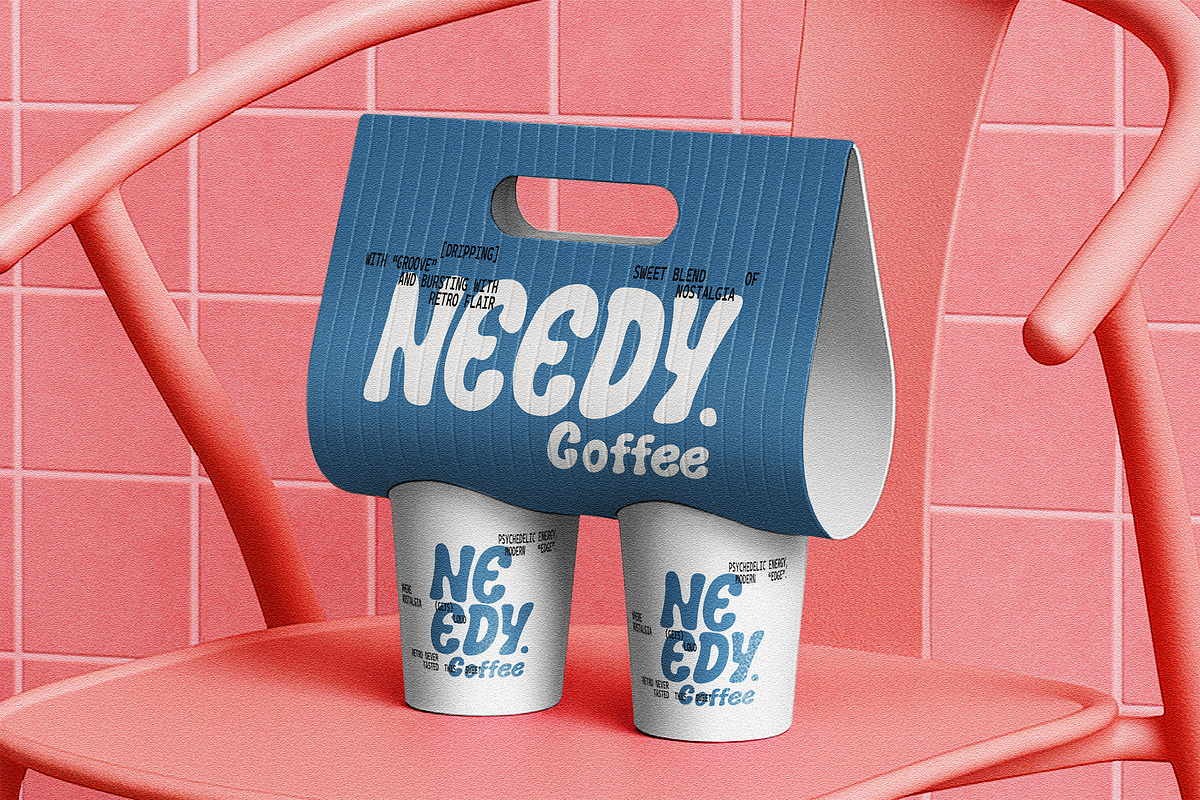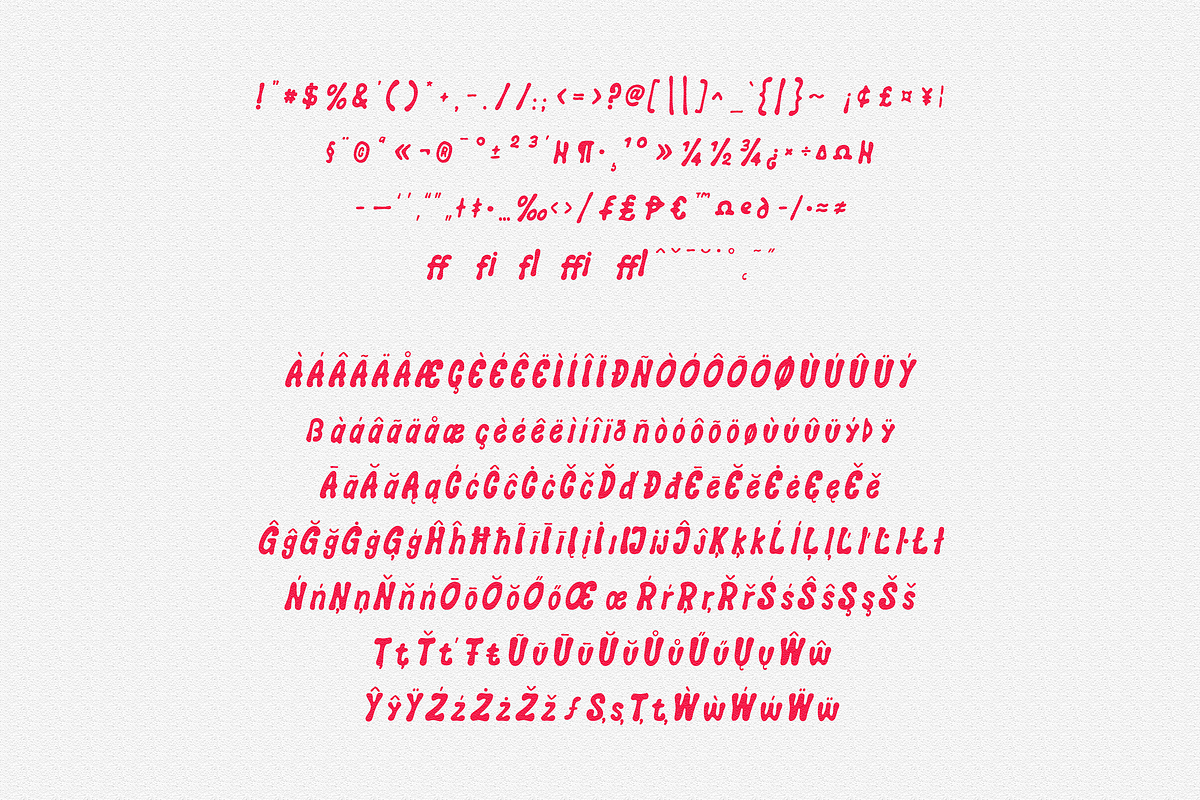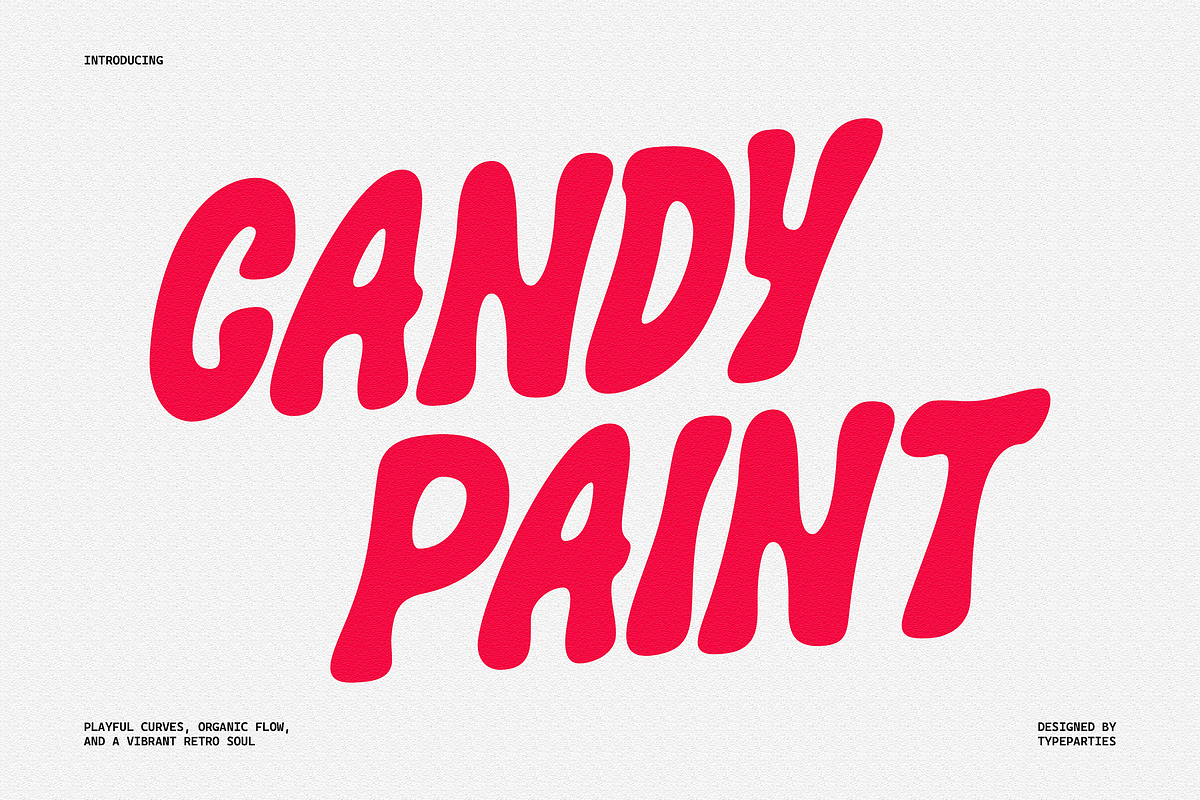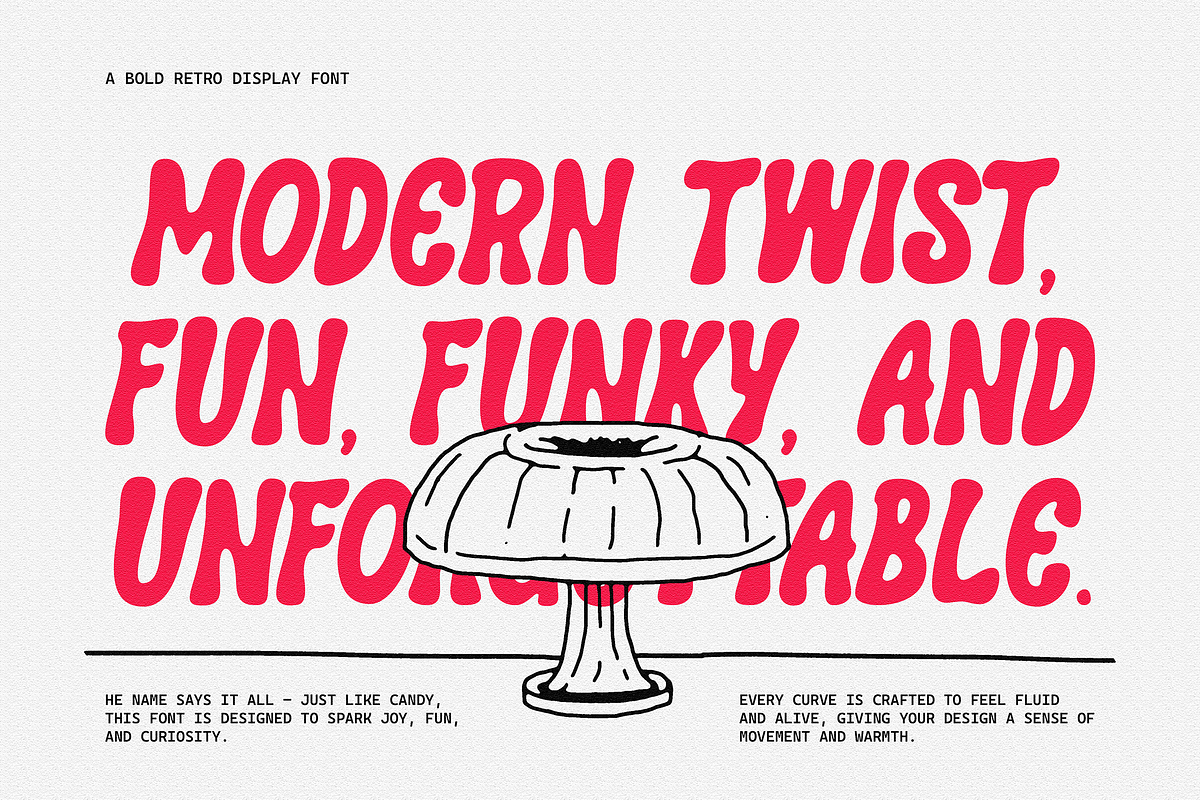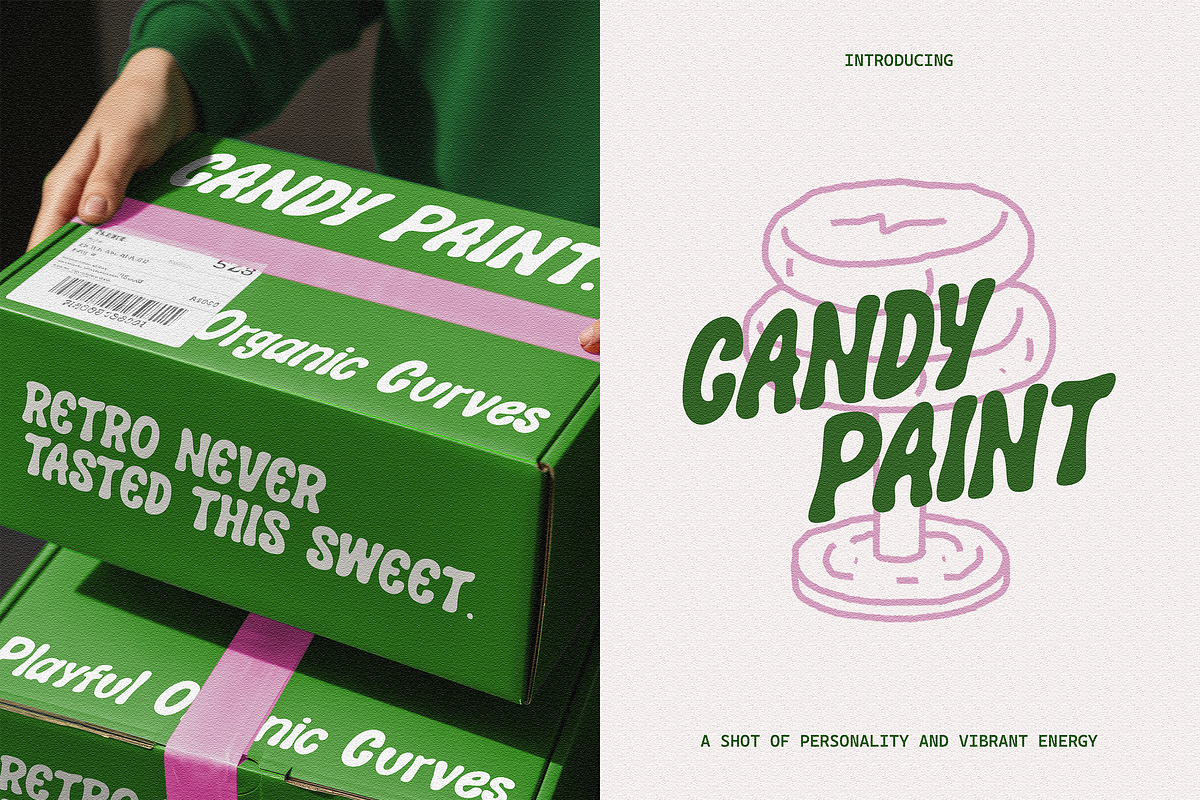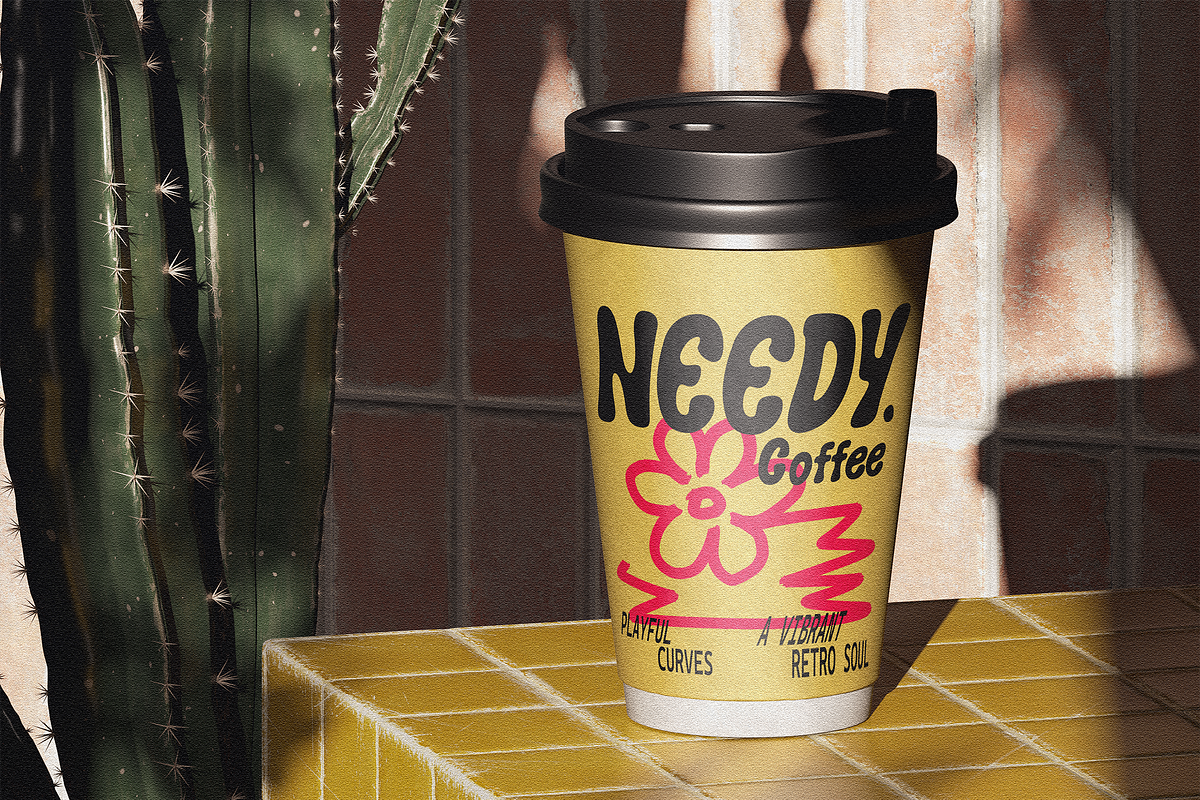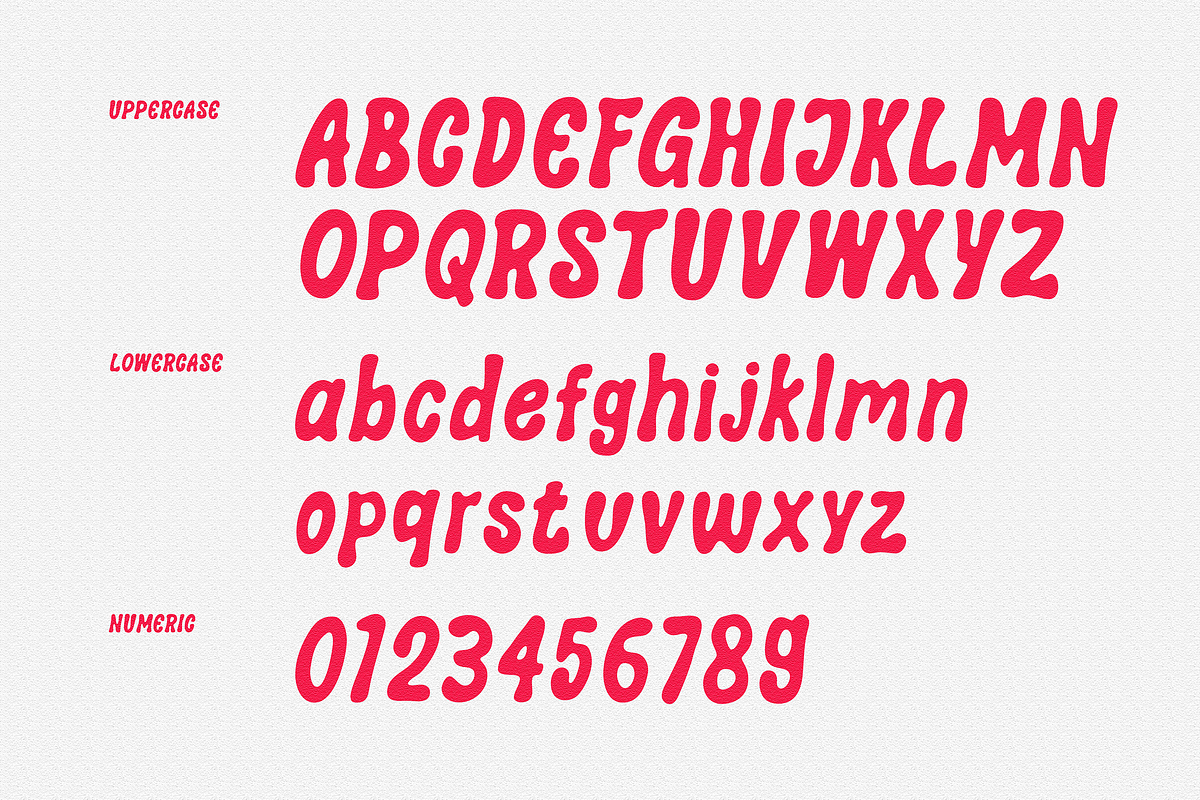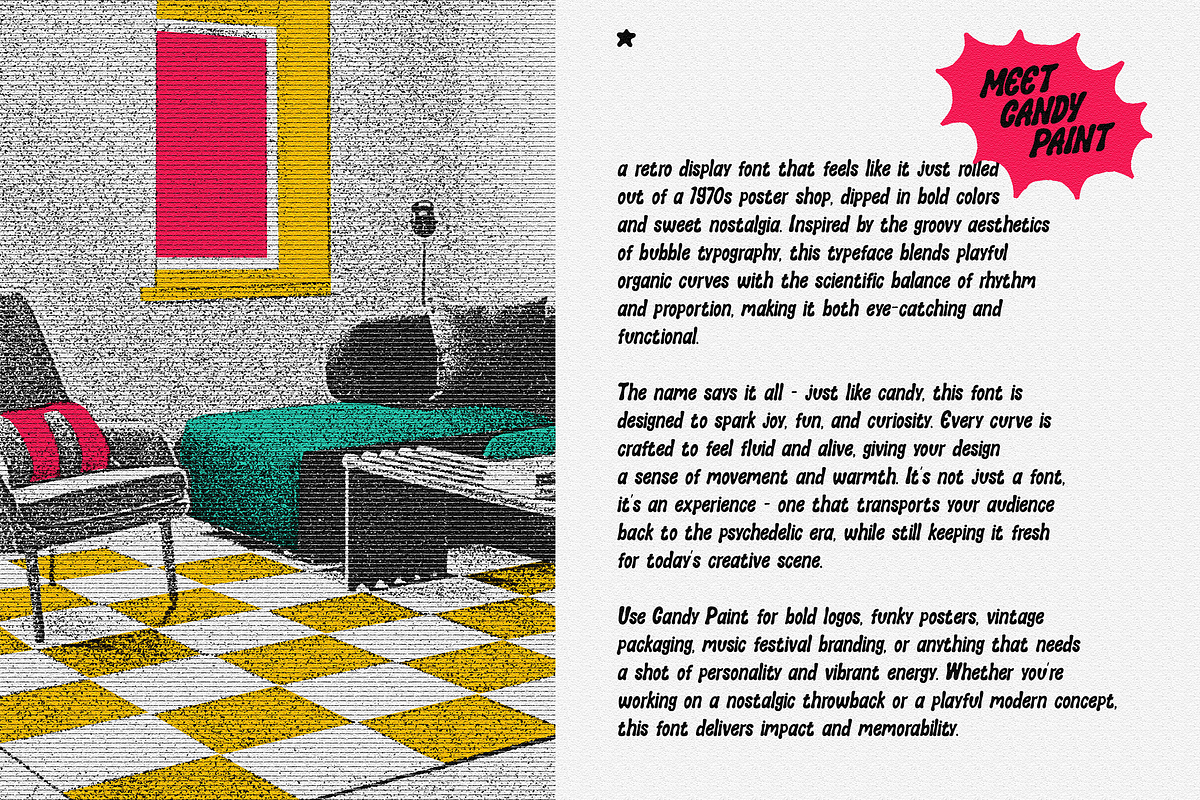
CandyPaint - Retro Groovy Font
Meet Candy Paint – a retro display font that feels like it just rolled out of a 1970s poster shop, dipped in bold colors and sweet nostalgia. Inspired by the groovy aesthetics of bubble typography, this typeface blends playful organic curves with the scientific balance of rhythm and proportion, making it both eye-catching and functional.
The name says it all – just like candy, this font is designed to spark joy, fun, and curiosity. Every curve is crafted to feel fluid and alive, giving your design a sense of movement and warmth. It’s not just a font, it’s an experience – one that transports your audience back to the psychedelic era, while still keeping it fresh for today’s creative scene.